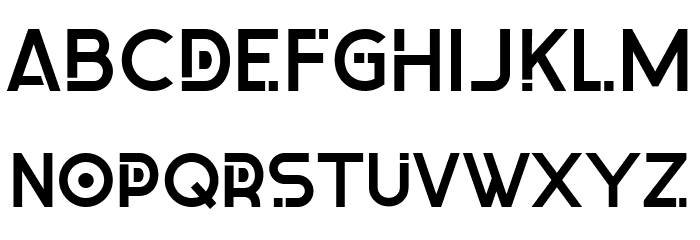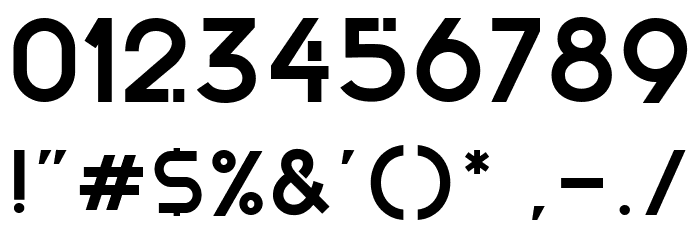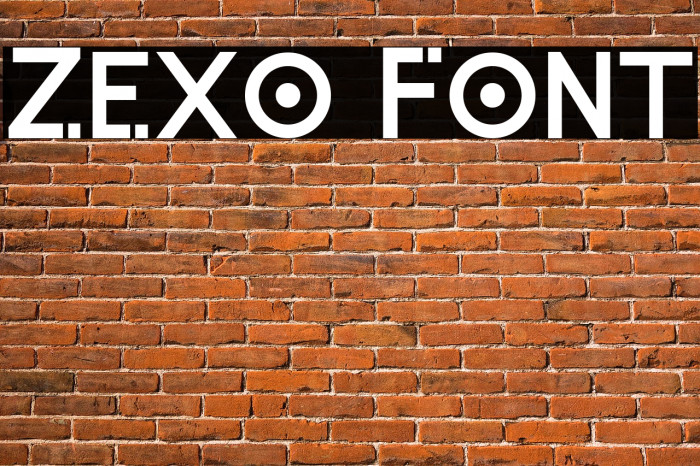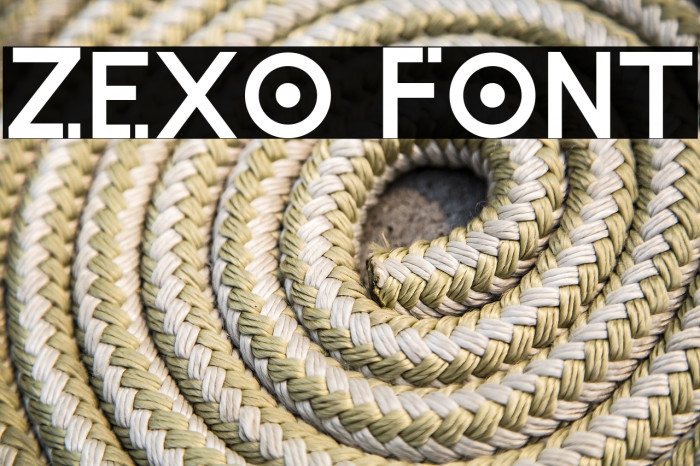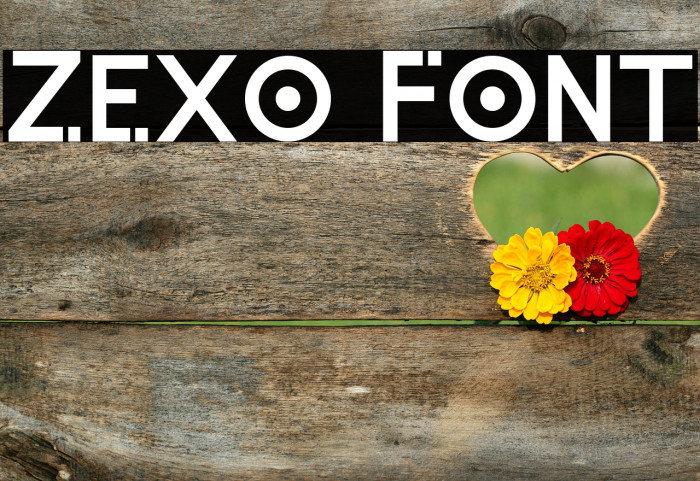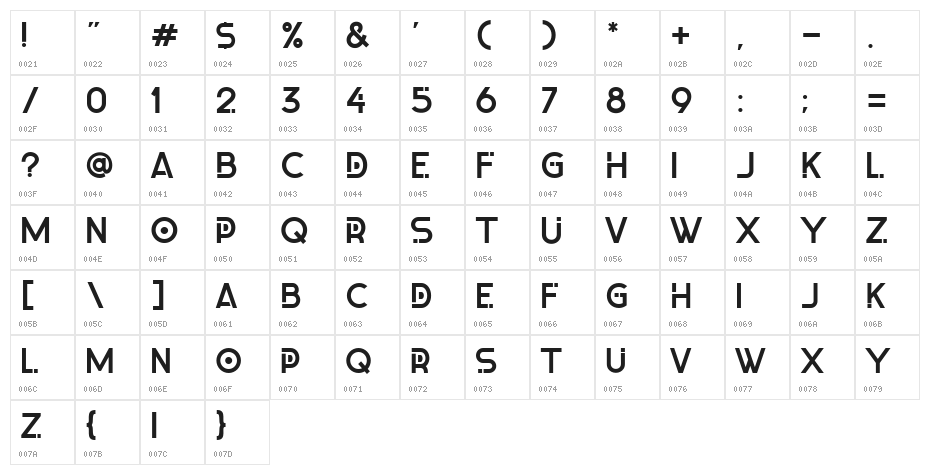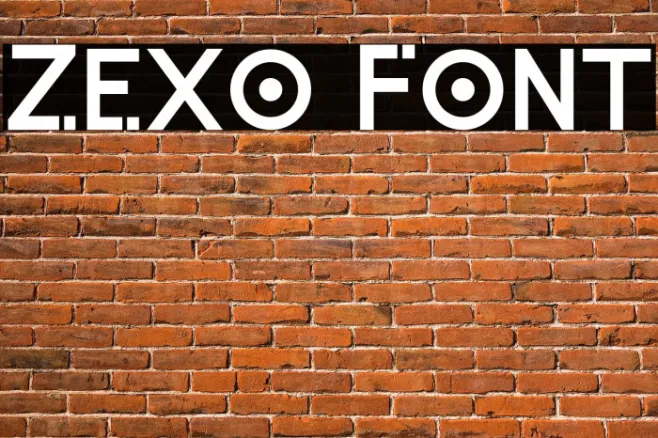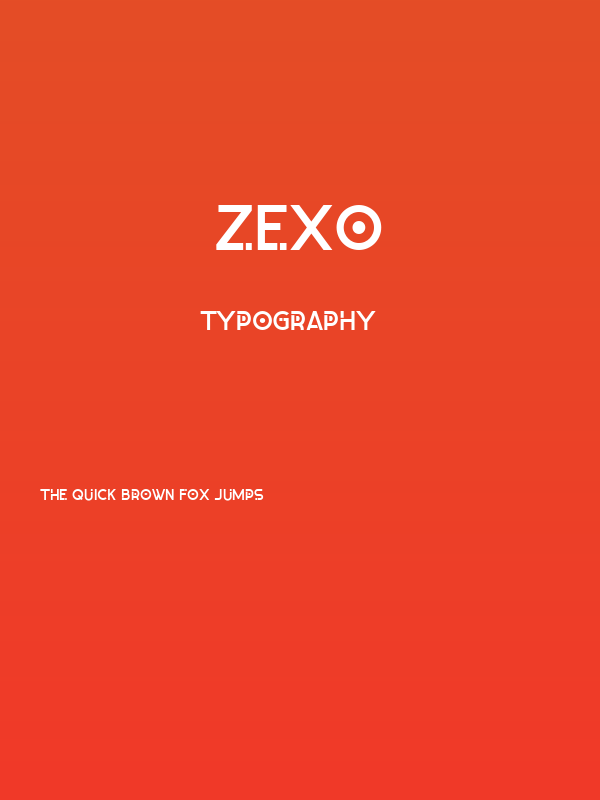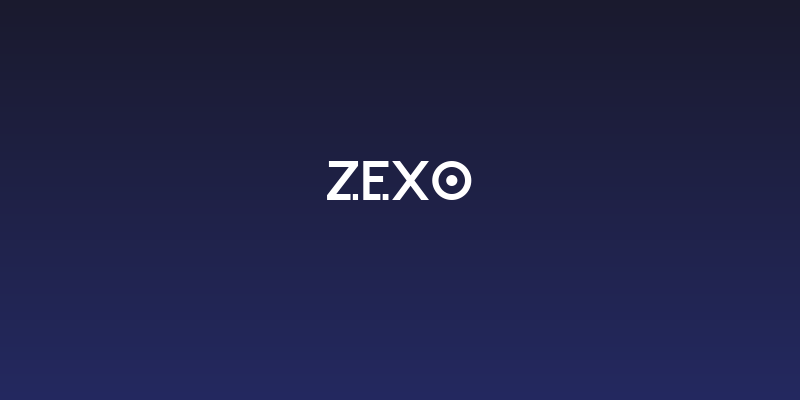
Zexo Font
This font features a bold and geometric design with a modern flair. The characters are constructed with clean lines and sharp angles, giving it a futuristic and tech-inspired appearance. The uppercase letters are particularly striking, with unique cutouts and a sense of symmetry that adds to its distinctiveness. The numbers and special characters maintain this cohesive style, ensuring versatility across various applications. The overall look is both sleek and assertive, making it suitable for projects that require a strong visual impact.
A bold, geometric font with a modern, tech-inspired design.
- Proposed Projects: Ideal for branding, technology-related projects, posters, and futuristic designs.